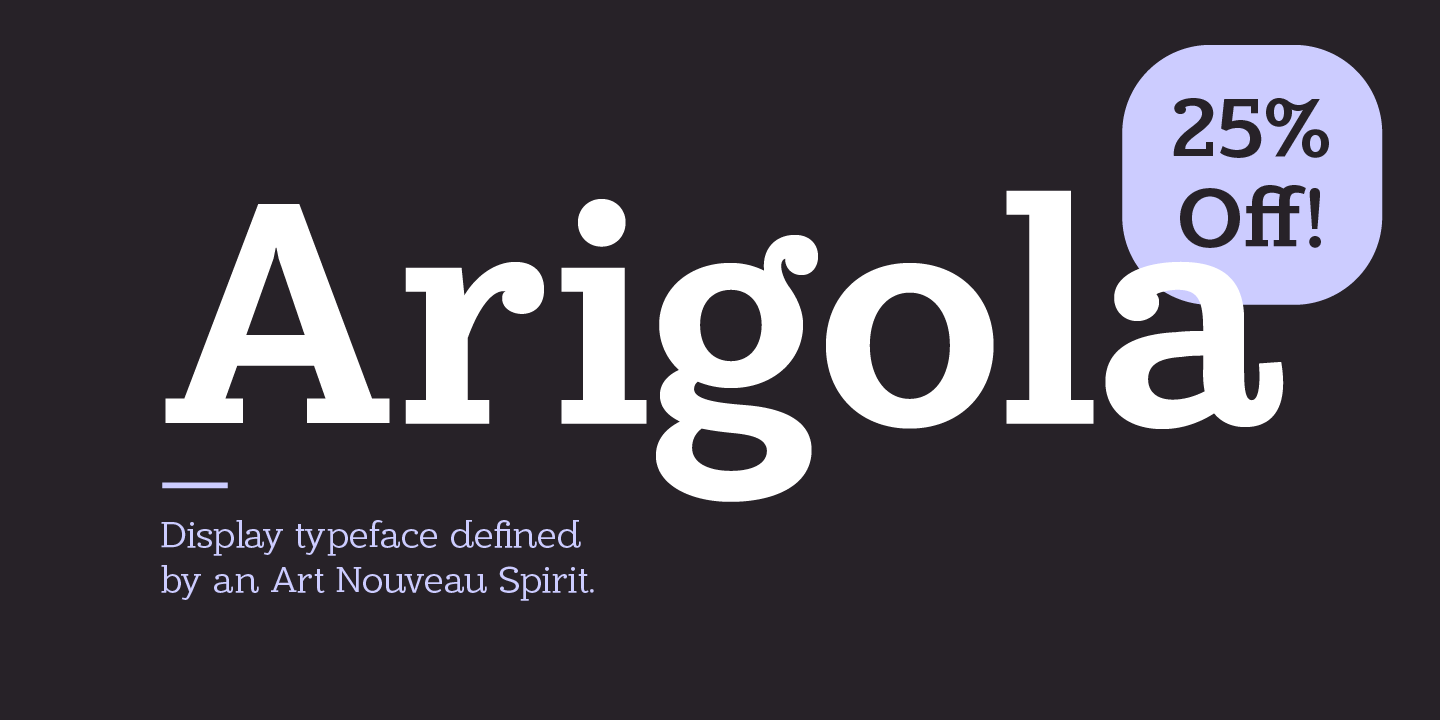
I have just released a brand new typeface for display purpose called Arigola...
Arigola is a beautiful slab serif defined by its Art Nouveau spirit that gives it a particular charm; one that is eye pleasing and helps distinguish products against its competitors. Naturally highlighting words to give a striking title and create an extra visual weight, Arigola embraces natural forms inspired by the living world with great rhythm. Arigola offers an excellent range of alternative characters to add personality to projects and stand out from the crowd with its own voice.